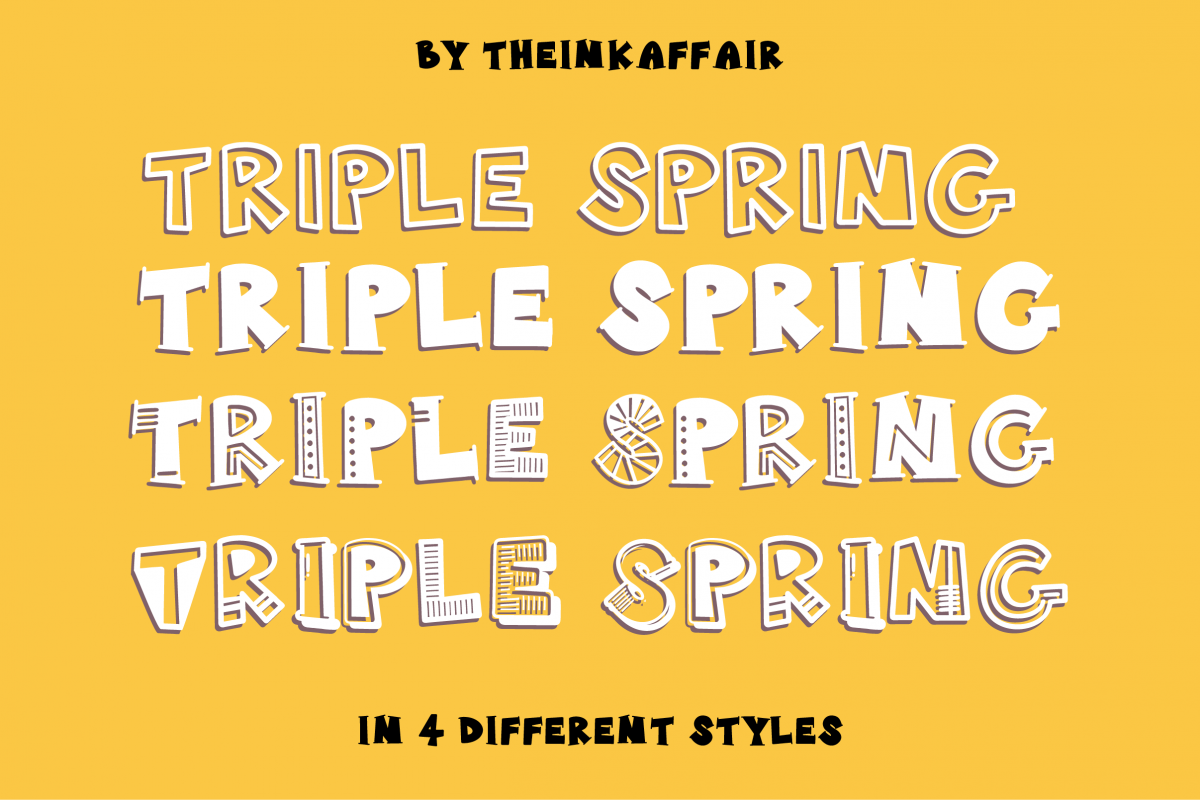
Introducing Triple Spring, a fun uppercase font that comes in 4 different styles!
Perfect for creating design files, quotes, printables and more!
- Triple Spring - contains all four styles as uppercase letters, lowercase letters, uppercase and lowercase alternates.
- Triple Spring Solid
- Triple Spring Hollow
- Triple Spring Cutout
- Triple Spring Cutout 2